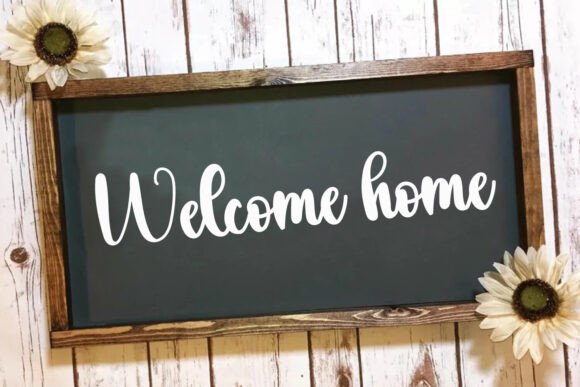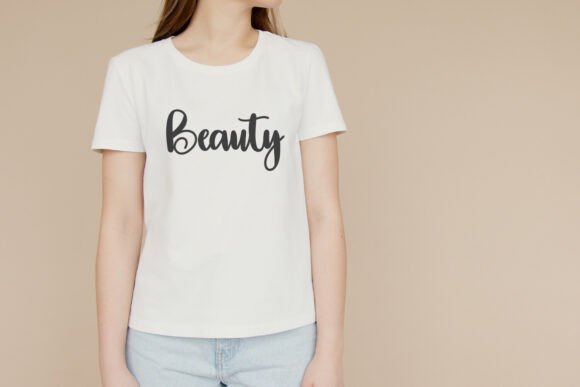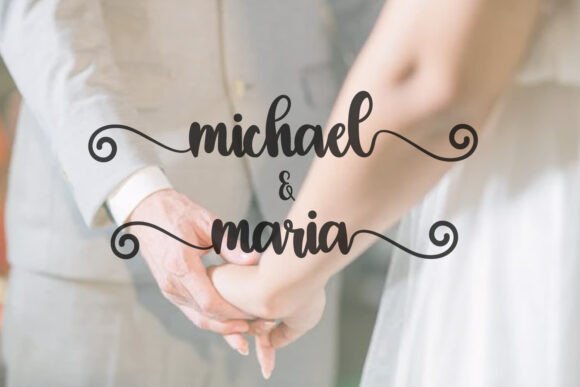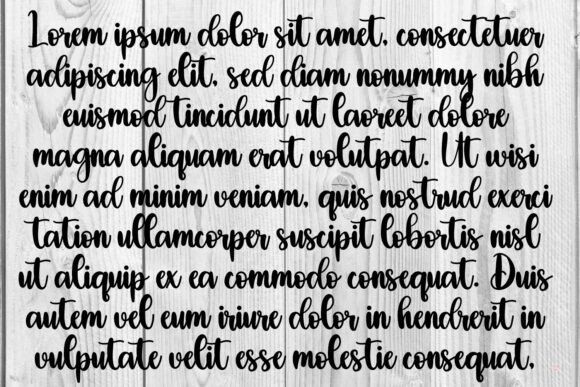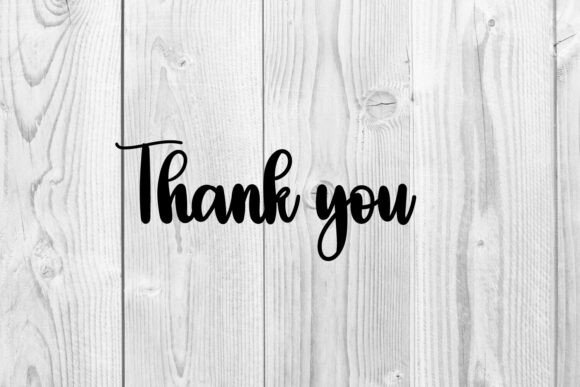
Introduction to Fiorielle Font
Fiorielle is a handwritten font carefully crafted for a cool and unique design.
This font can be used to write letters, invitations, food products, titles, and more .
Fiorielle Font offers exceptional quality and versatility, making it a valuable addition to your design toolkit. Whether you’re creating for personal projects or commercial use, Fiorielle Font delivers professional results.